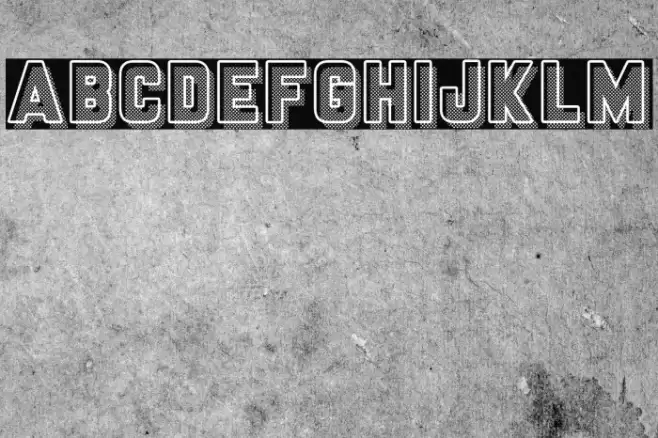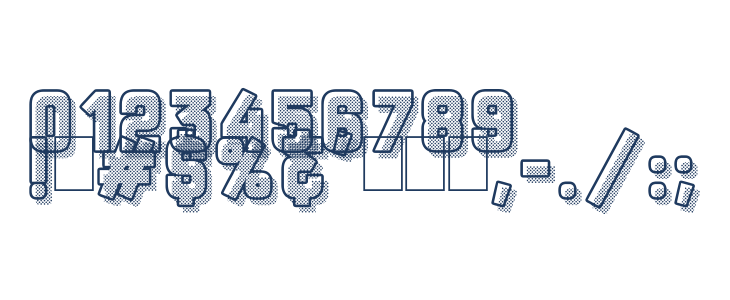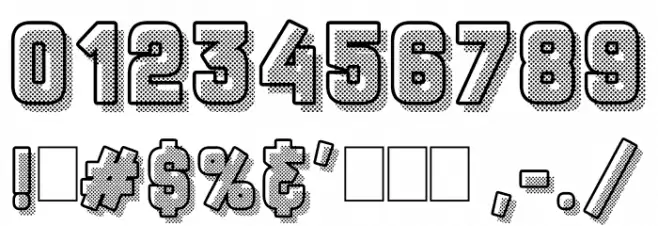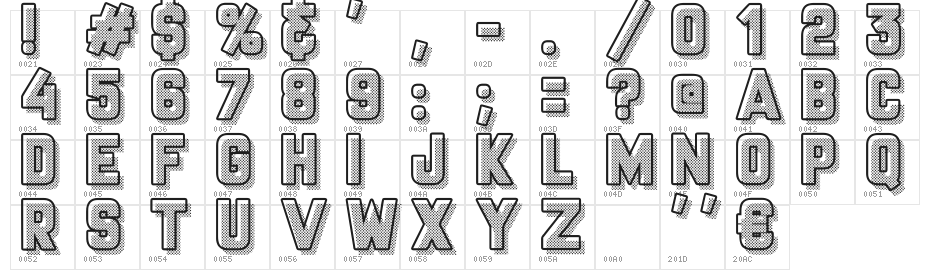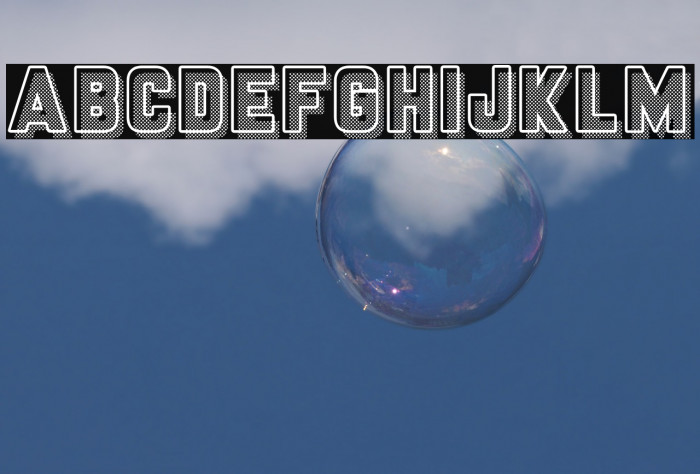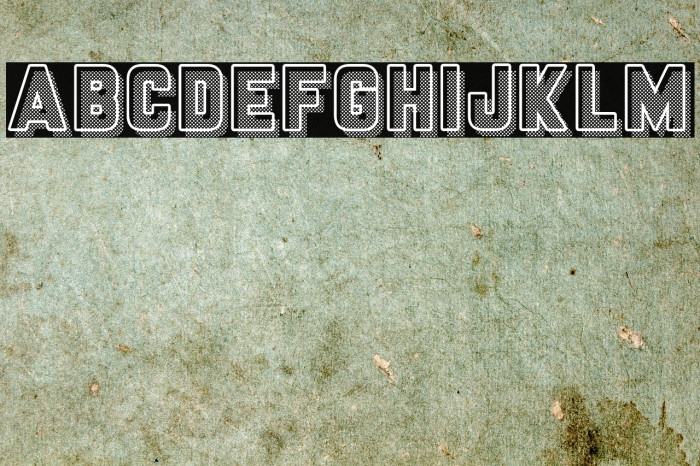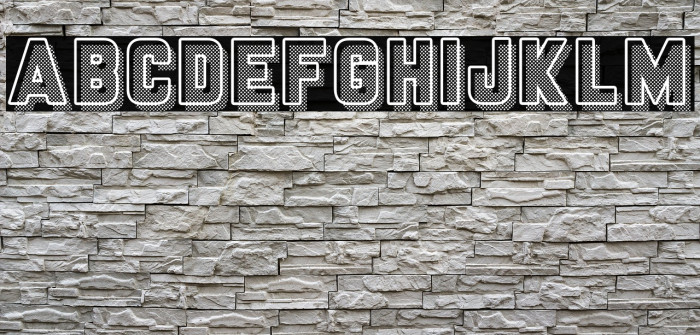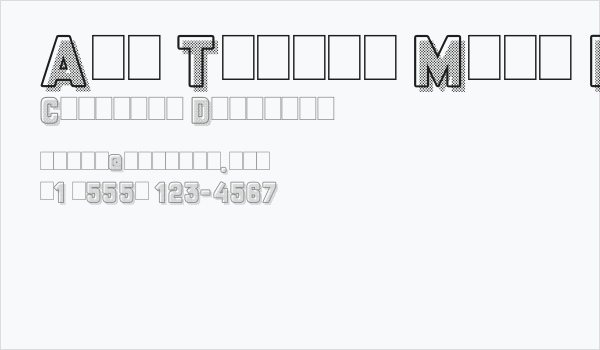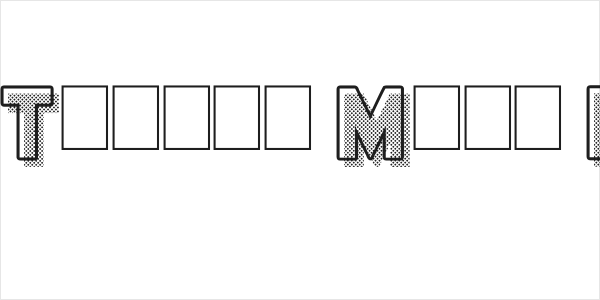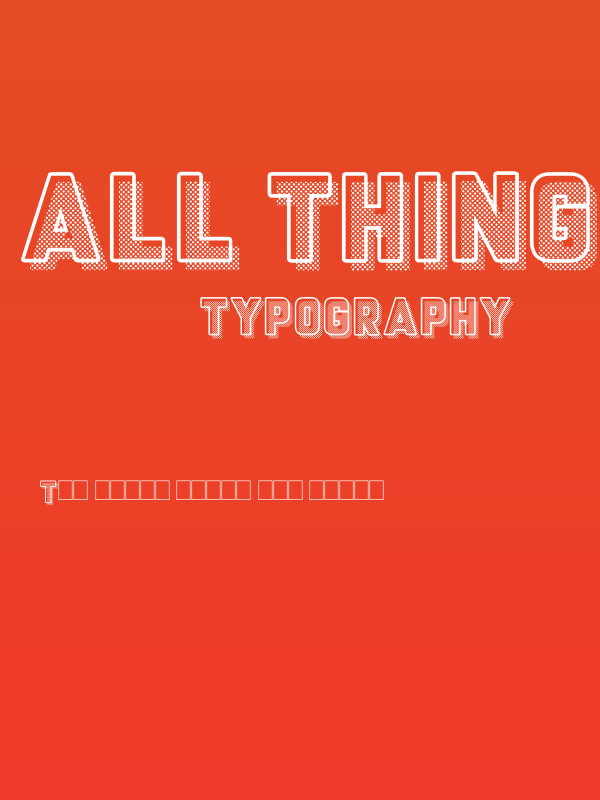
All Things Must Pass Font
All Things Must Pass Description
This font features a bold, decorative style with a distinct halftone pattern filling each character, giving it a retro comic book feel. The uppercase letters are prominently outlined, enhancing their visibility and impact. The numbers and special characters maintain the same stylistic approach, ensuring consistency across all glyphs. The design is playful yet structured, making it suitable for eye-catching headlines or creative projects. The halftone effect adds texture and depth, making the font stand out in digital and print media. Its unique aesthetic is reminiscent of vintage pop art, making it ideal for projects that aim to evoke nostalgia or a sense of fun.
A bold, decorative font with a retro halftone pattern, perfect for eye-catching designs from Decorative fonts.
- Proposed Projects: Ideal for comic book covers, retro-themed posters, playful branding, and creative advertising campaigns.
- Overall Style: Vintage